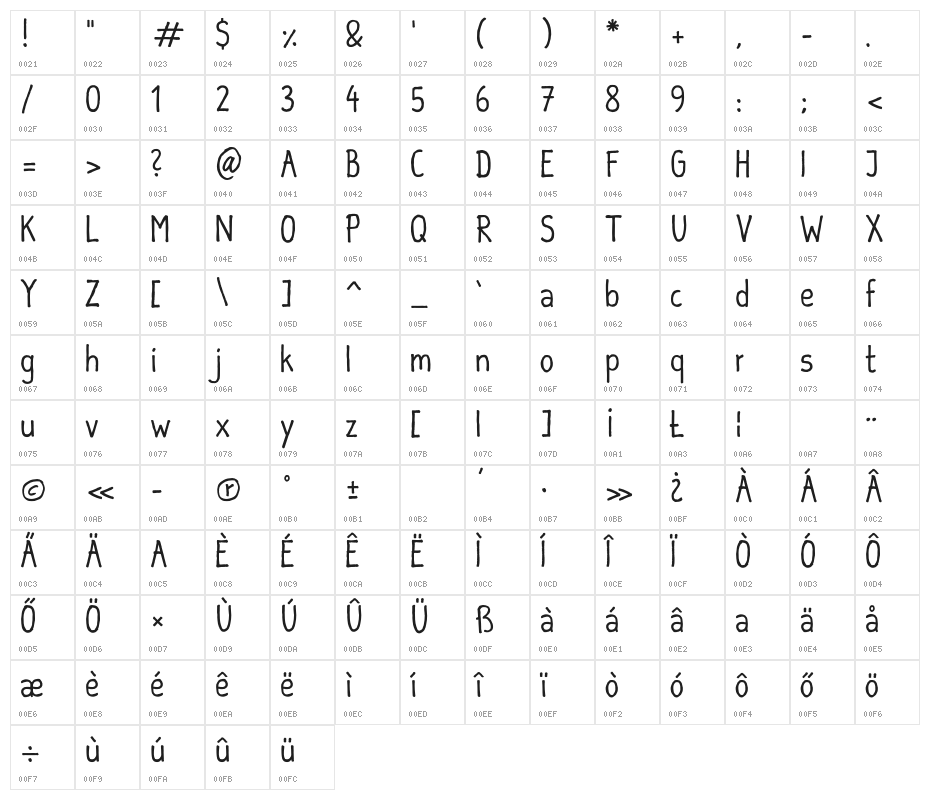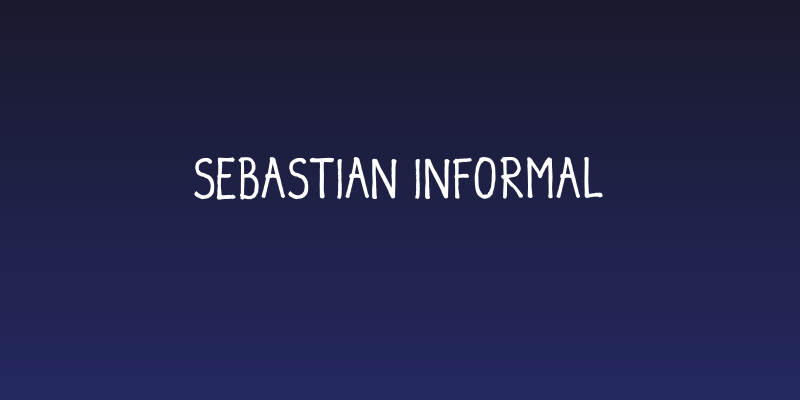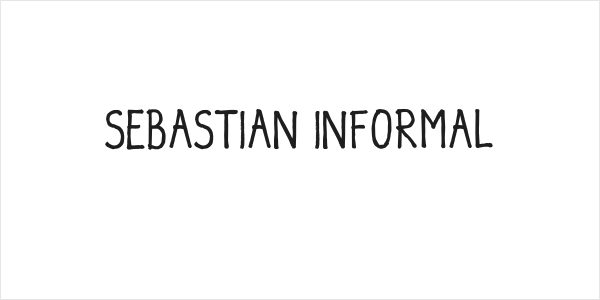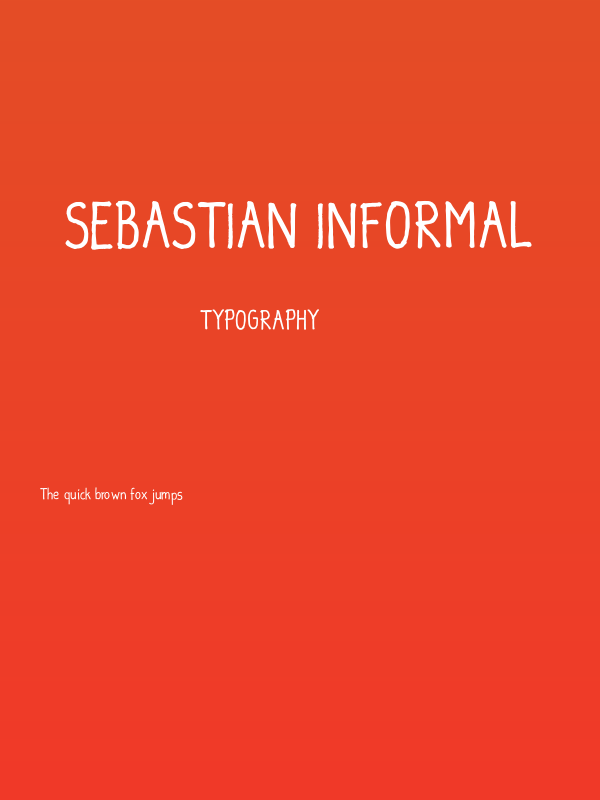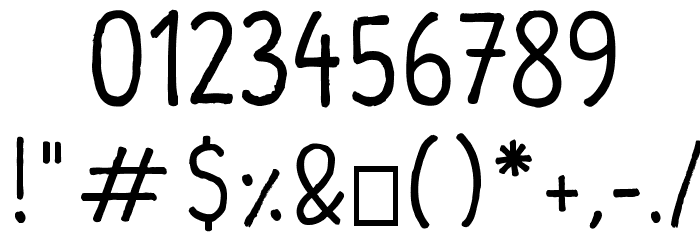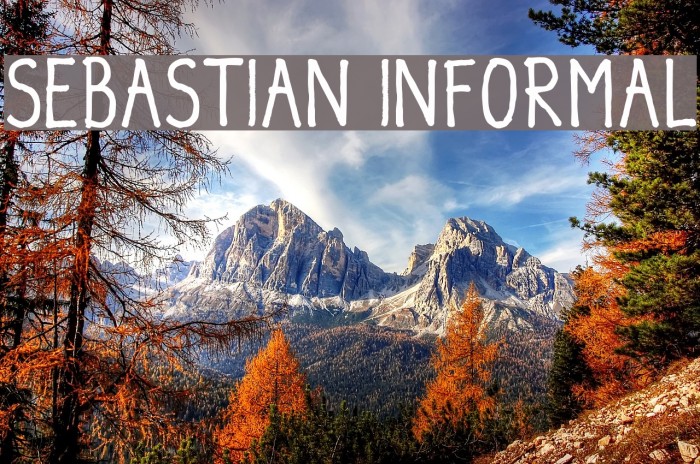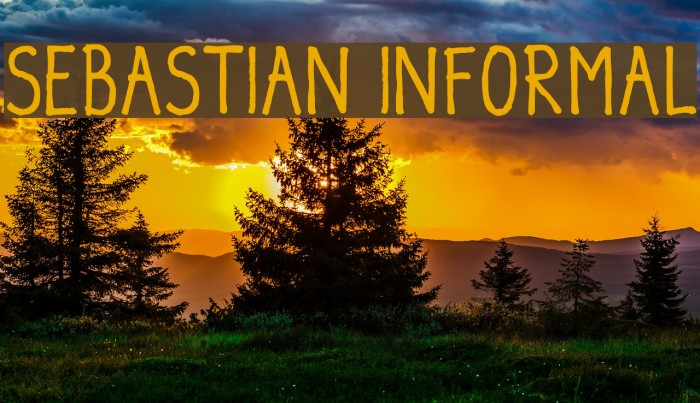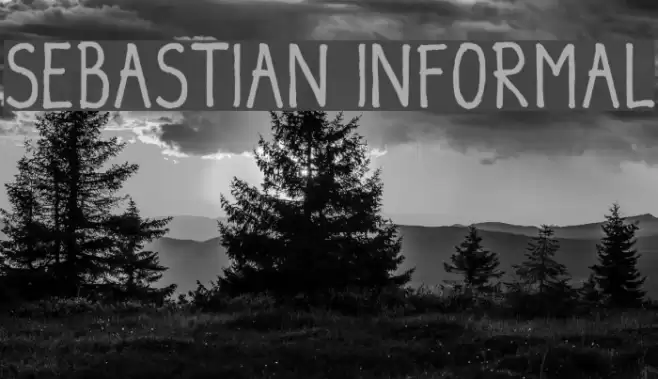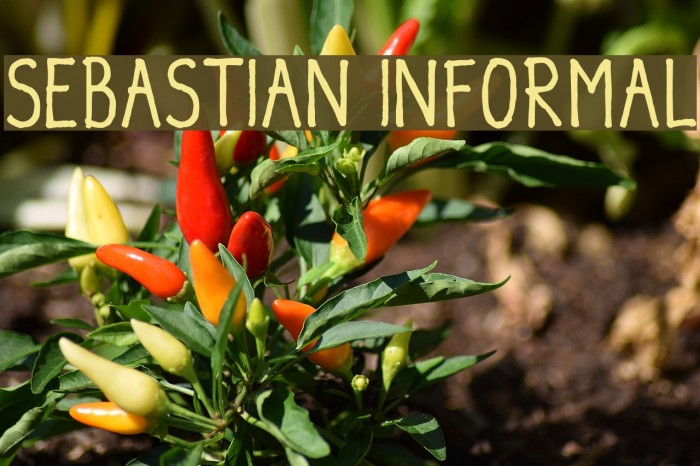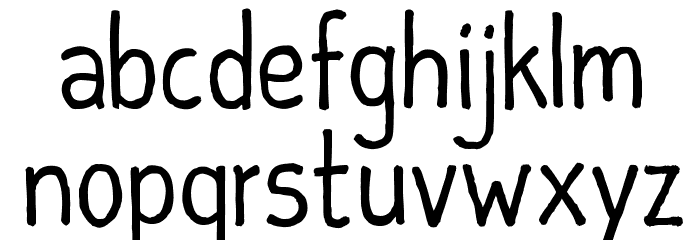
SEBASTIAN INFORMAL Font
SEBASTIAN INFORMAL Description
This font exudes a casual and playful vibe, characterized by its hand-drawn appearance. The letters are slightly irregular, giving it an informal and approachable feel. The strokes are consistent in thickness, providing a uniform look across all characters. The uppercase and lowercase letters maintain a cohesive style, with rounded edges and a slight tilt that adds to its charm. The numerals and special characters follow the same design principles, ensuring a harmonious overall appearance. This font is perfect for projects that require a personal touch or a relaxed aesthetic.
| Overall Style | Casual |
| Use Case | Headlines, Informal text, Creative projects |
| Proposed Projects | Ideal for greeting cards, children's books, casual branding, and social media graphics. |